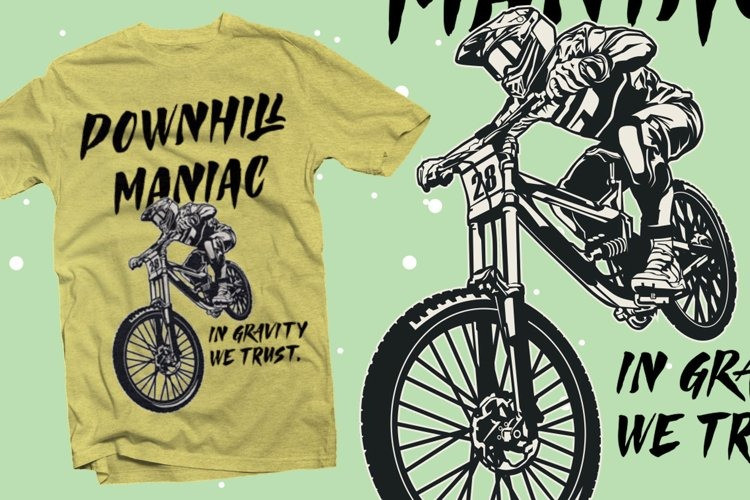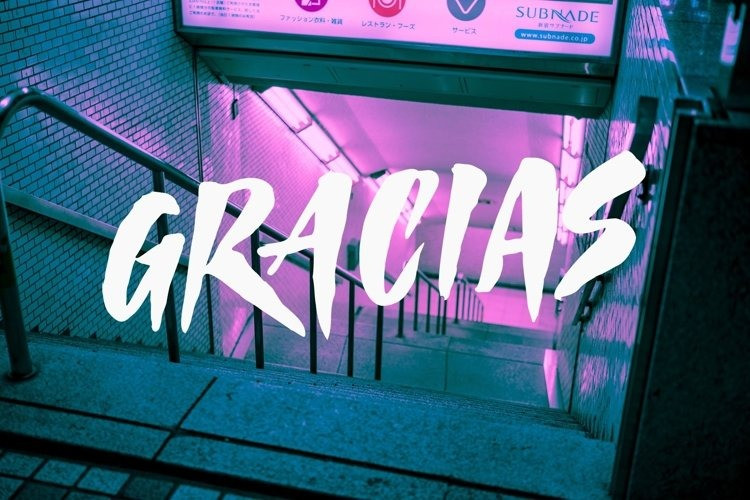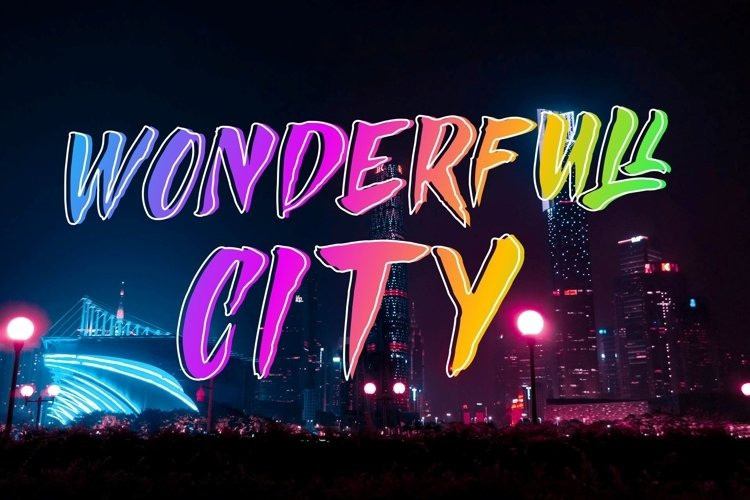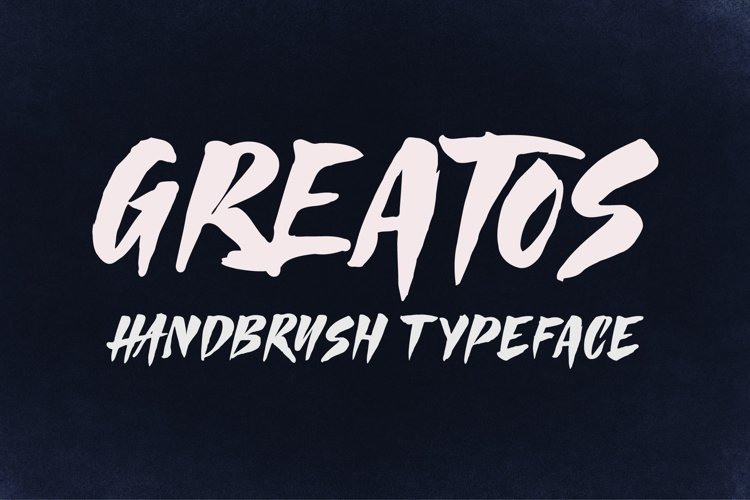
Greatos Font
Greatos Display Font
This is a textured display font, perfect for your next project. Made from font designer named Astageni. This font was made to grab the attention of your viewers and deserves to be used in the headings of your flyers, promo material, logos, and many more designs.